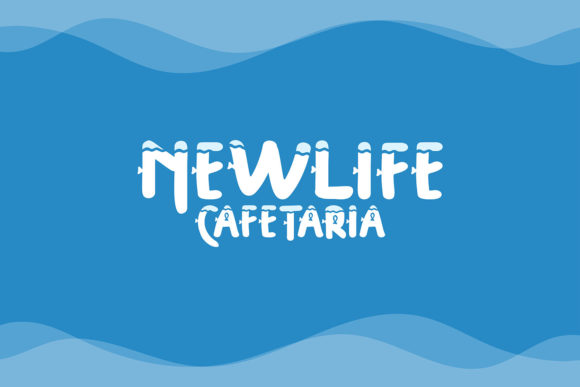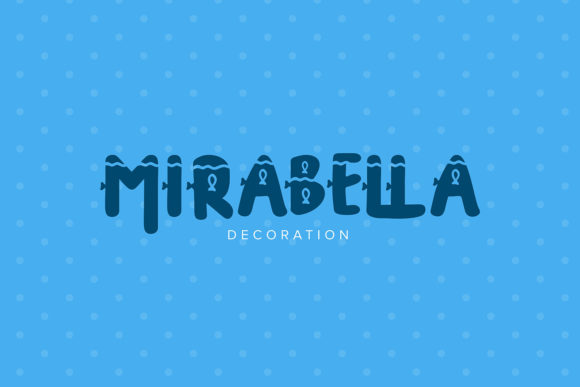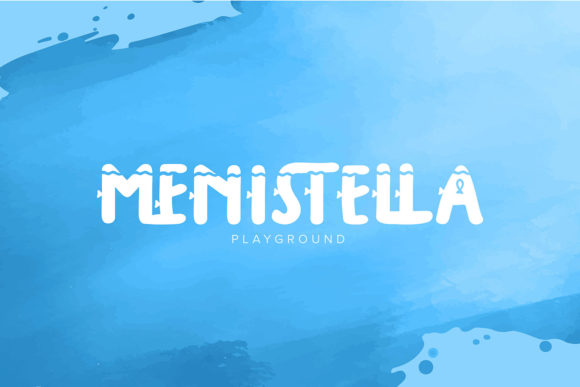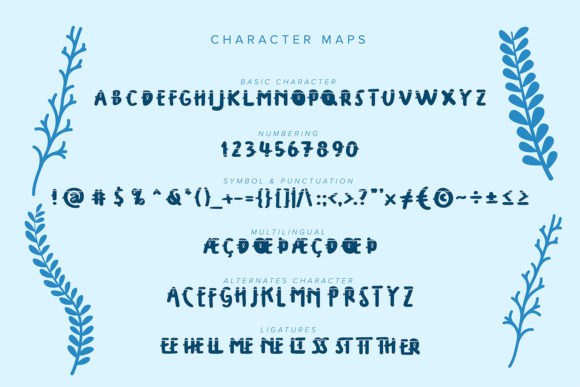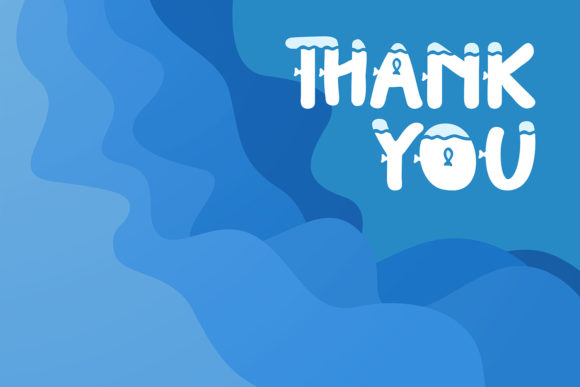
Discover the Catch: Fisherman Font – A Decorative Delight for Designers and Crafters
Are you tired of using the same old fonts in your creative projects? Look no further! Introducing Fisherman, an incredibly unique and interesting decorative font that features fish ornaments. This charming font is sure to add a touch of whimsy and personality to your designs, making them stand out from the crowd. In this article, we’ll dive into the world of Fisherman Font, exploring its features, uses, and benefits for designers and crafters.
A Catch Like No Other: What is Fisherman Font?
Fisherman Font is a decorative font that showcases intricate fish ornaments, carefully crafted to add a touch of playfulness and charm to your designs. Each letter is uniquely designed, featuring fish-shaped decorations that will transport your audience to an underwater world of creativity. Whether you’re working on a logo, poster, or social media graphic, Fisherman Font is sure to make your project stand out.
Features of Fisherman Font
- Unique and quirky design: Fisherman Font boasts an eye-catching design that will add a touch of personality to your projects.
- Fish ornaments: Each letter features intricate fish-shaped decorations, perfect for aquatic-themed projects.
- Decorative and playful: This font is perfect for designers and crafters looking to add a touch of whimsy to their work.
Uses of Fisherman Font
Fisherman Font is versatile and can be used in a variety of creative projects, including:
- Logos and branding: Create a memorable logo for your business or product with Fisherman Font.
- Posters and flyers: Add a touch of playfulness to your promotional materials with this decorative font.
- Social media graphics: Make your social media posts stand out with Fisherman Font.
- Crafting and scrapbooking: Use Fisherman Font to add a personal touch to your craft projects.
Benefits of Using Fisherman Font
By incorporating Fisherman Font into your designs, you’ll enjoy several benefits, including:
- Unique designs: Fisherman Font will help you create one-of-a-kind designs that will set you apart from others.
- Increased engagement: The playful and decorative nature of this font will capture your audience’s attention and keep them engaged.
- Flexibility: Fisherman Font can be used in various design projects, from logos to social media graphics.
Tips for Using Fisherman Font
To get the most out of Fisherman Font, follow these tips:
- Use it sparingly: Fisherman Font is a decorative font, so use it sparingly to avoid overwhelming your design.
- Pair it with other fonts: Combine Fisherman Font with other fonts to create a unique and visually appealing design.
- Experiment with colors: Fisherman Font looks great in bold, bright colors, so don’t be afraid to experiment.
Fisherman Font is an incredibly unique and interesting decorative font that features fish ornaments. Add this font to your favorite creative ideas and notice how it makes them come alive! With its quirky design, ease of use, and versatility, Fisherman Font is perfect for designers and crafters looking to add a touch of whimsy to their projects. So why wait? Dive into the world of Fisherman Font and discover a catch like no other!